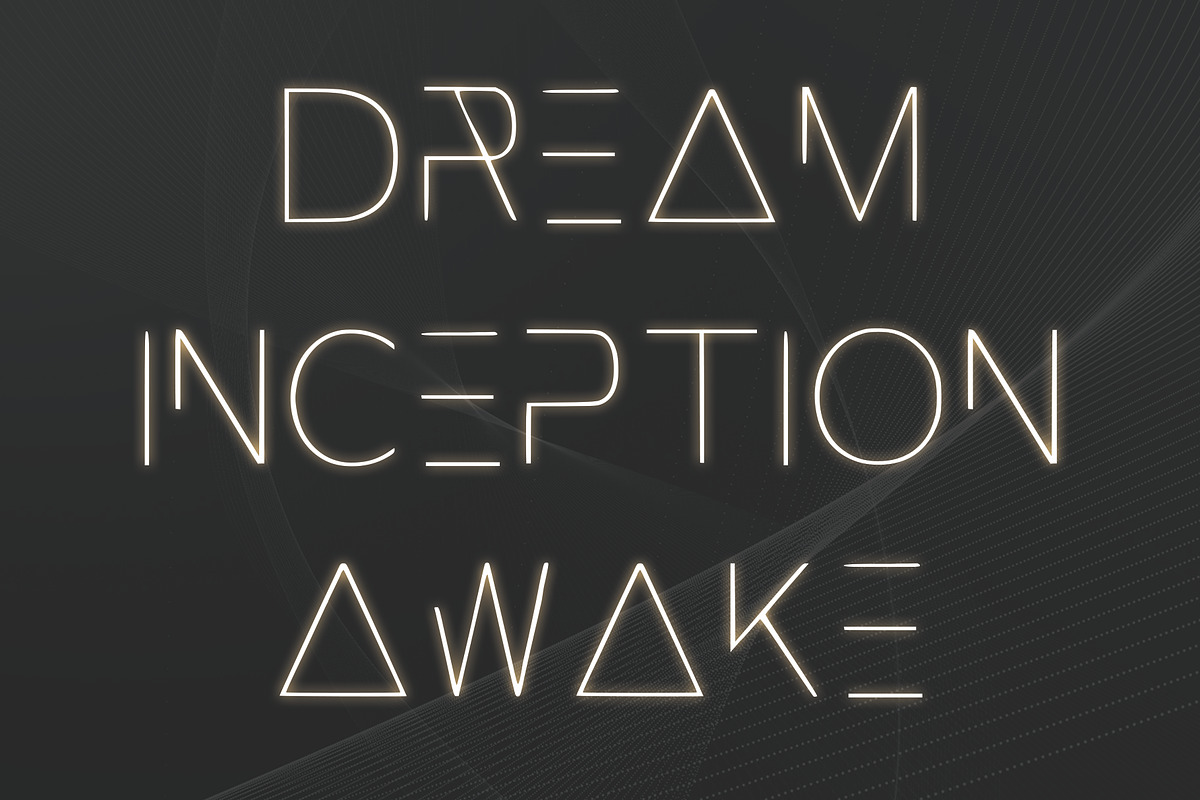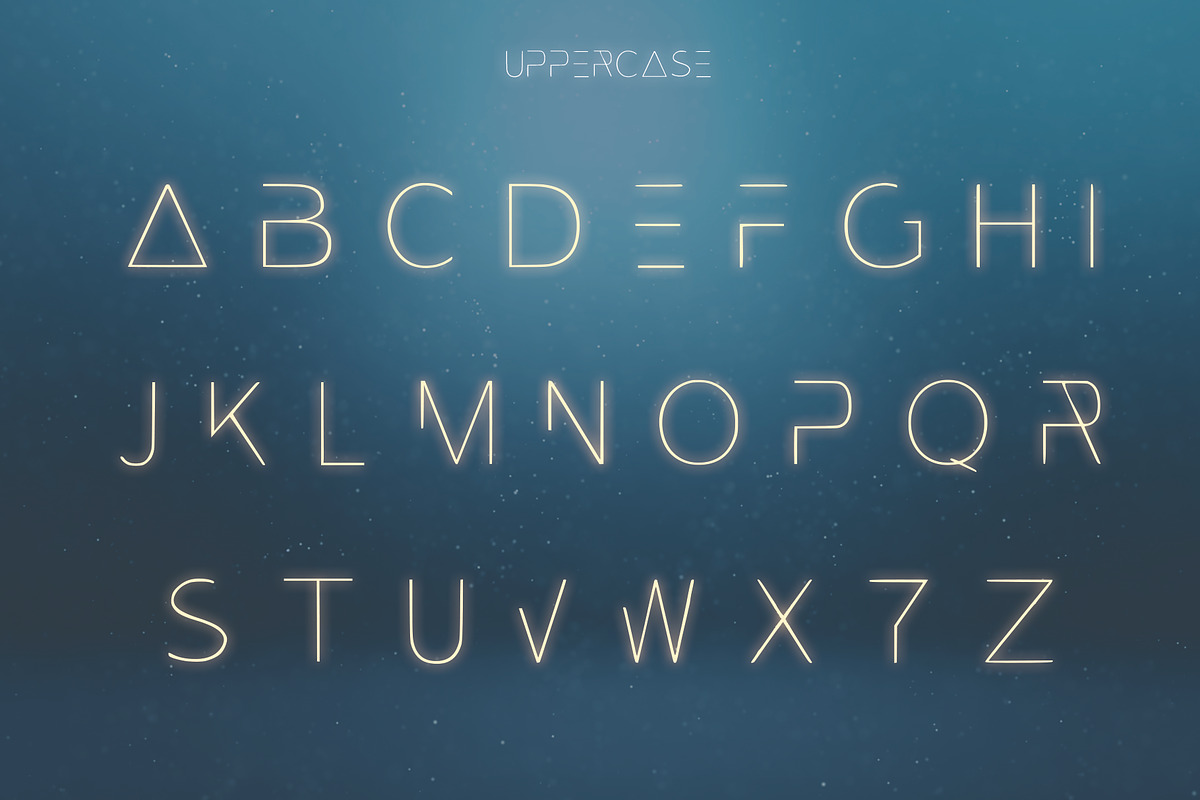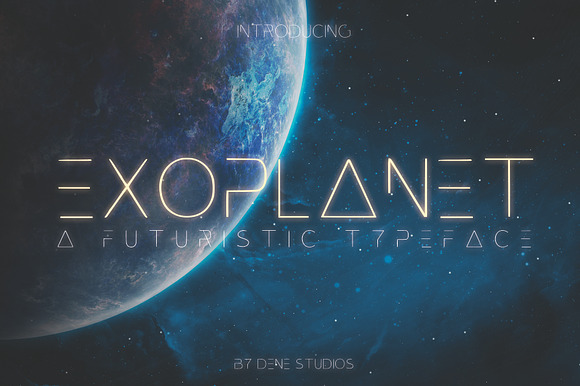
EXOPLANET - A Futuristic Typeface
Exoplanet is a unique and creative design that has been passionately handcrafted to give you a futuristic typeface. Inspired by sci-fi, this font is perfect for your next project, especially if you want to give a futuristic feel.